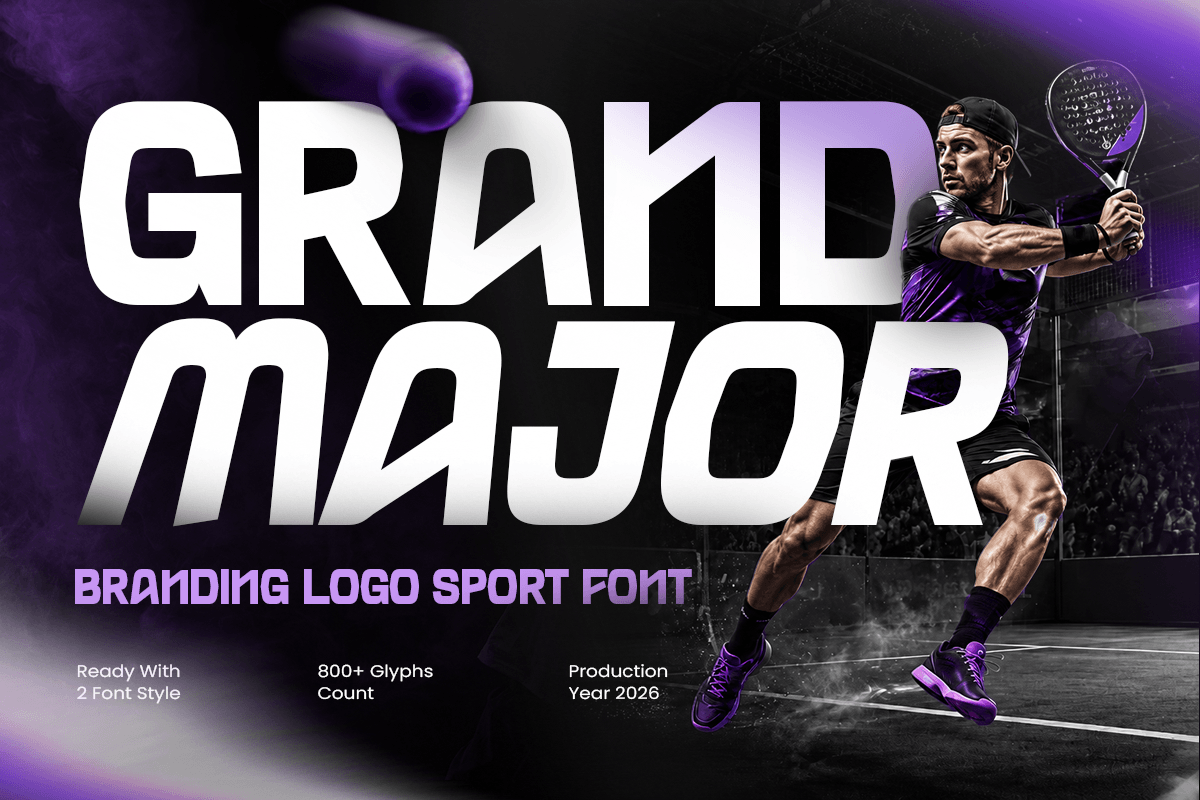
Grand Major
-Logo Sport Techno Font
Grand Major - Logo Sport Techno Font
GRAND MAJOR is a branding logo sport font designed to deliver strength, energy, and competitive character to your visual identity. Featuring bold letterforms, powerful proportions, and a dynamic display style, this typeface is perfect for sports teams, athletic brands, esports identities, and modern logo design.
Inspired by the world of competition and performance, GRAND MAJOR combines a strong athletic personality with contemporary branding aesthetics. Its impactful structure makes it ideal for team logos, sports posters, merchandise, event graphics, and promotional campaigns.
Whether you're creating a championship identity, fitness brand, gaming team, or action-focused visual project, GRAND MAJOR delivers confidence, speed, and professional impact across both print and digital platforms.
GRAND MAJOR – Branding Logo Sport Font Features
• Bold sport-inspired display design for powerful branding
• Perfect for team logos, posters, and athletic identities
• Available with regular and italic version
• Strong letterforms with energetic visual impact
• Ideal for sports, esports, gaming, fitness, and competition themes
• OpenType features for enhanced typographic flexibility